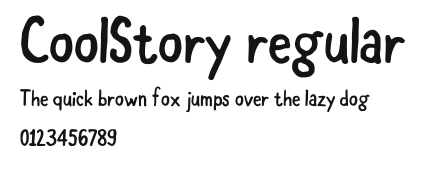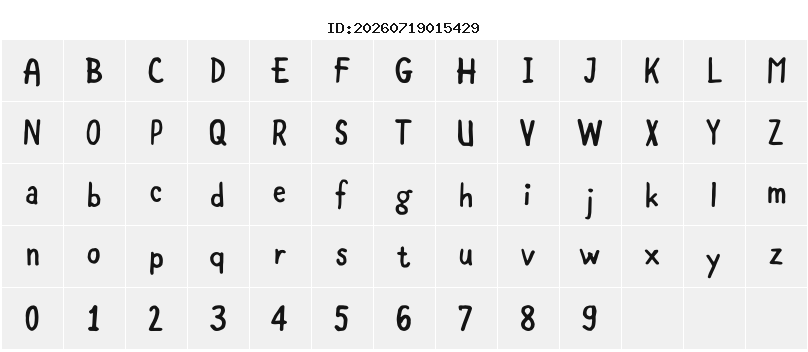
• Font Name: CoolStory regular
• Designer: Cruzine
• Manufacturer: Cruzine
About CoolStory regular.ttf
CoolStory regular.ttf is a modern, elegant sans-serif font designed for ultimate readability and visual harmony. Perfect for branding, headlines, web design, and print materials.